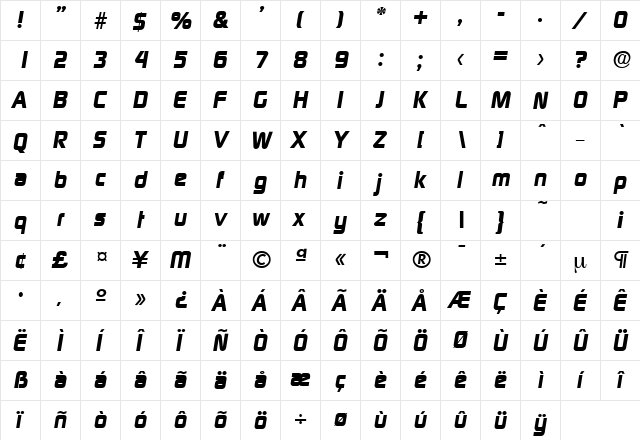
Digital-Serial-ExtraBold RegularItalic Font Preview
Design Context for Digital-Serial-ExtraBold Typeface
Digital-Serial-ExtraBold channels digital-age aesthetics through its sharp, structured letterforms — ideal for brands that want to signal innovation. Its italic angle brings a sense of urgency and motion to the letterforms. Its bold stroke weight gives it real presence on the page.
Pro Tip: Use Digital-Serial-ExtraBold in combination with a neutral sans for body text. Let it define the brand voice in headlines while keeping reading comfortable elsewhere.